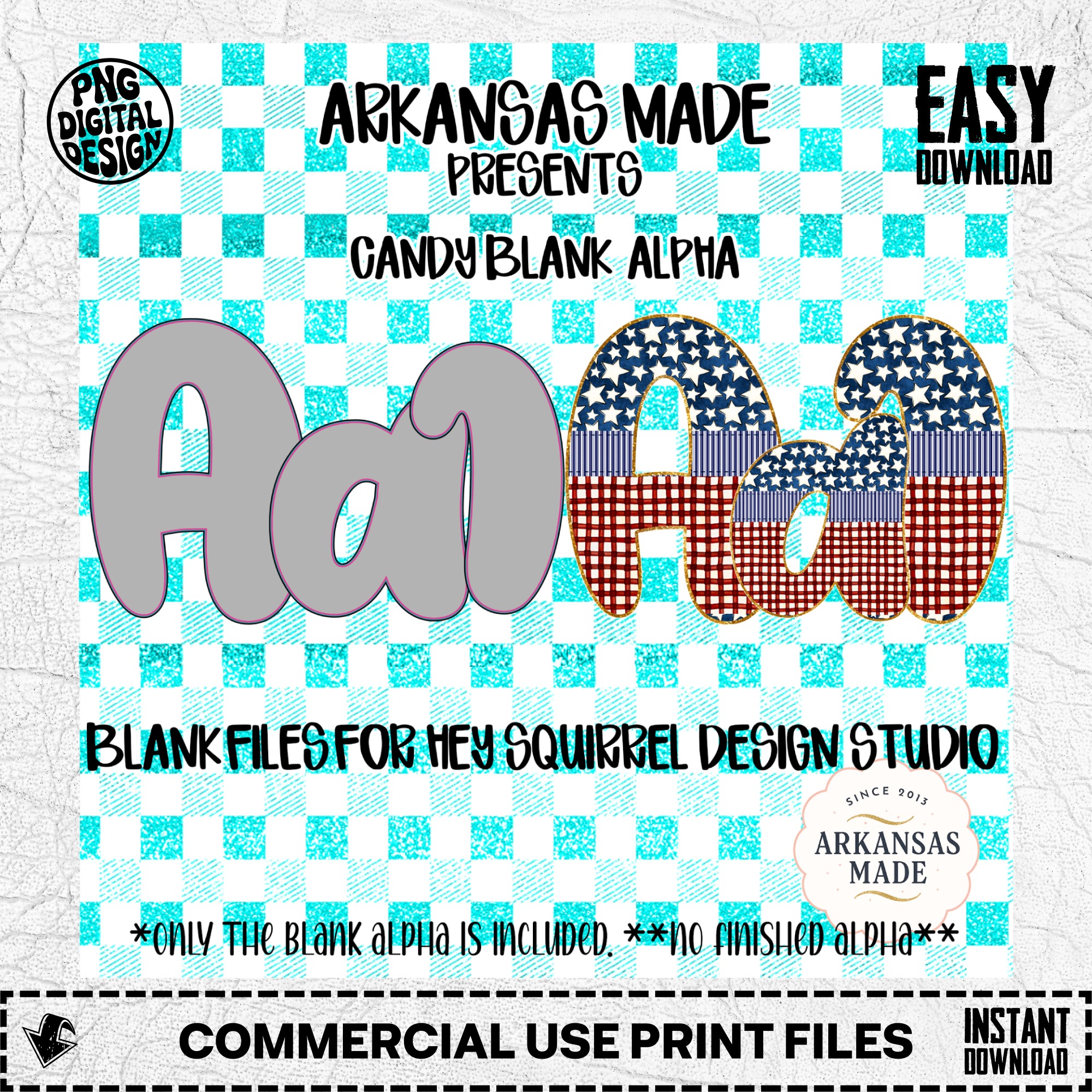
Candy Blank Alpha Digital PNGs for Hey Squirrel Design Studio | Customizable Letters for Crafters | Bubble Font Design Tool
Unlock endless creativity with this Candy Blank Alpha Digital PNG set, perfect for Hey Squirrel Design Studio. Craft personalized designs instantly! This versatile bubble font design tool offers a foundation for your unique projects, from patriotic celebrations to everyday custom creations. Ideal for digital crafters, small business owners, and anyone passionate about DIY designs, this alpha pack allows you to infuse your personal style into any graphic. Elevate your sublimation, print-on-demand, or digital artwork with ease, making every piece distinctly yours.